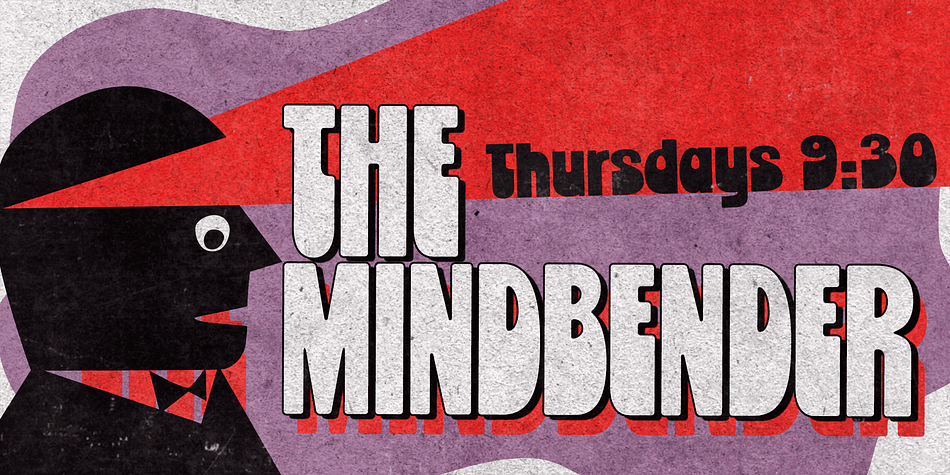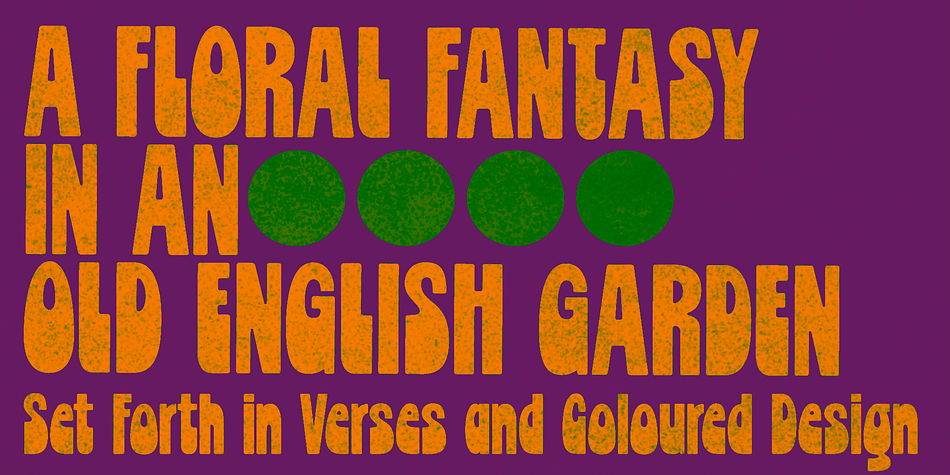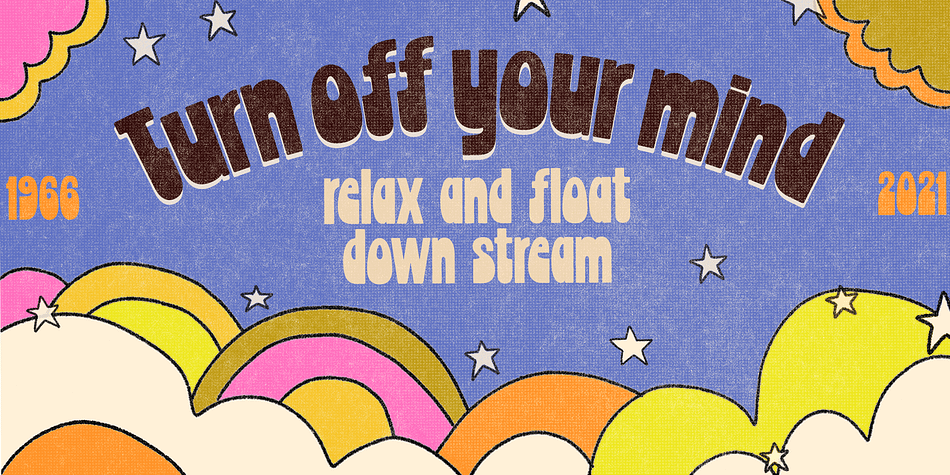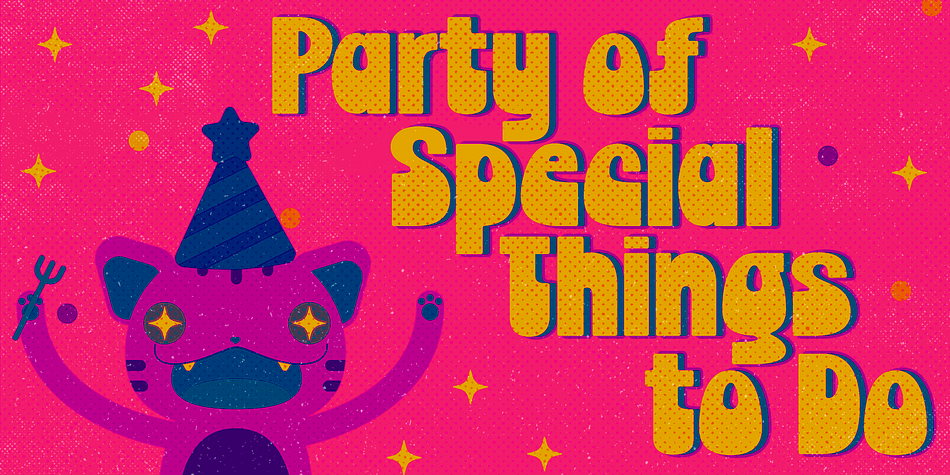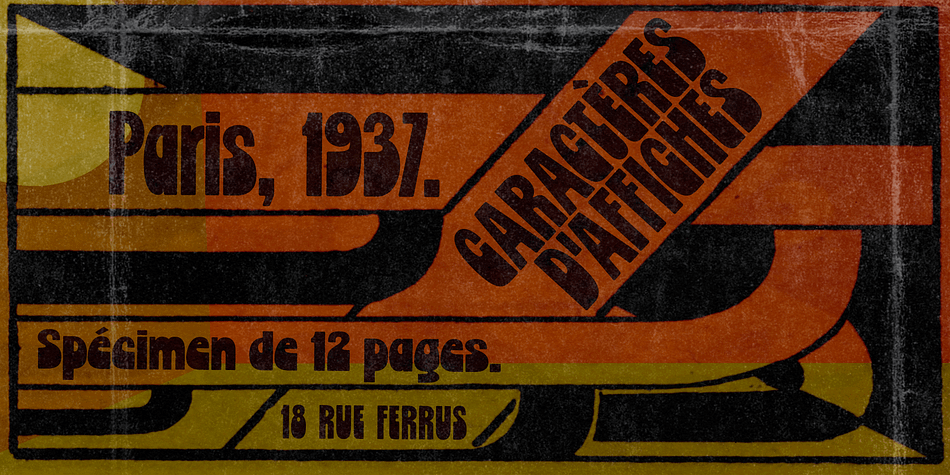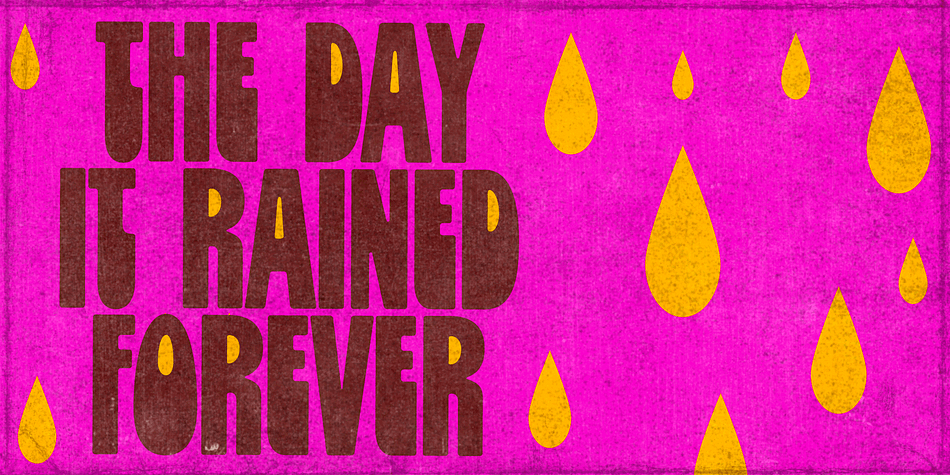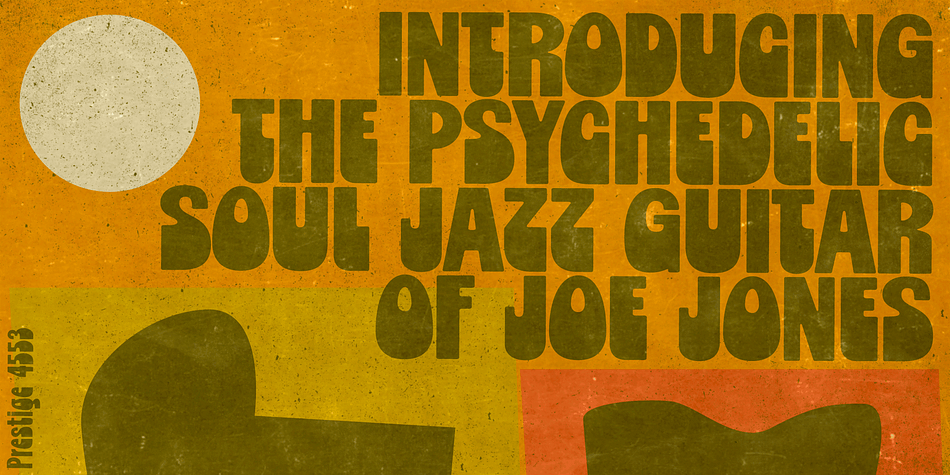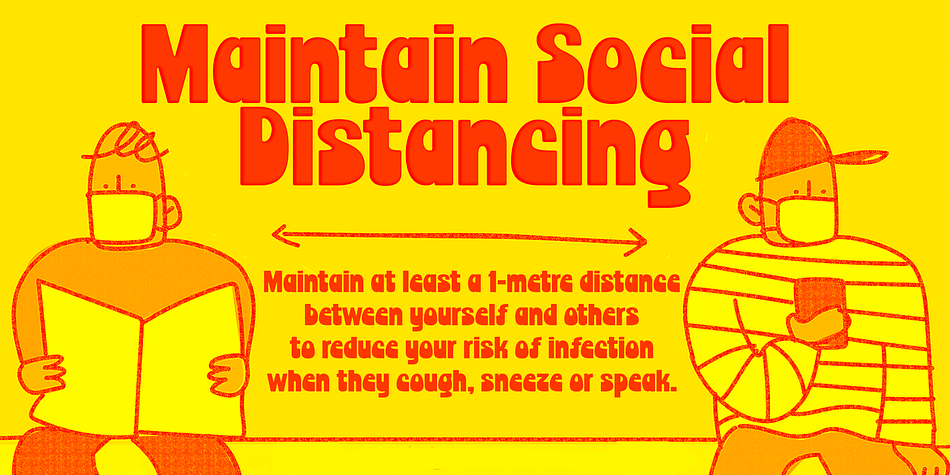
Chorine
Designed by Ricardo Marcin and Erica Jung, Chorine is a hand display and retro font family. This typeface has two styles and was published by The Flying Type.
Chorine is a retro face, impacting and comfy, available in two cuts. It’s great for vintage, nostalgic and psychedelic pieces yet also for creative contemporary designs.
Chorine sounds sixties, sounds seventies and sounds perfectly now. Play it!